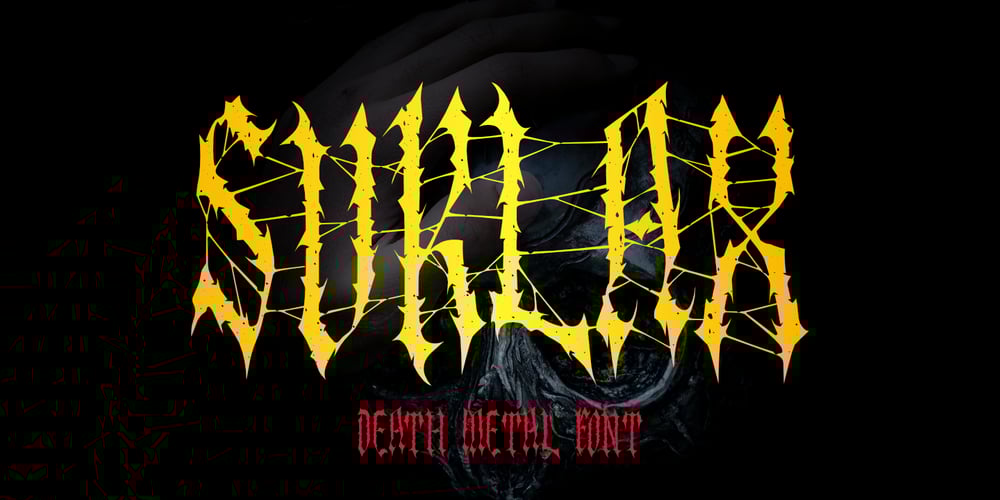
Suklax Font Family was designed by Saiful Anwar and published by Sealoung. Suklax contains 1 styles and family package options. Introducing the Suklak Death Metal Typeface, a design that pays homage to the culture of Head Bangers and Black Metal while maintaining readability. This font is ideal for a range of uses, from promotional materials and metal poster quotes to product packaging, merchandise, and branding projects requiring exceptional designs.The Suklak Death Metal Typeface is perfect for logos, packaging, magazines, posters, movie titles, social media posts, ad banners, book covers, poster quotes, and advertising.Included in this package:Multilingual supportWeb fontCompatible with PC & MacUsable in Adobe Illustrator, Adobe Photoshop, Adobe InDesign, and even Microsoft WordPUA Encoded Characters: Fully accessible without additional design softwareFonts include multilingual supportKeep on Rockin’!